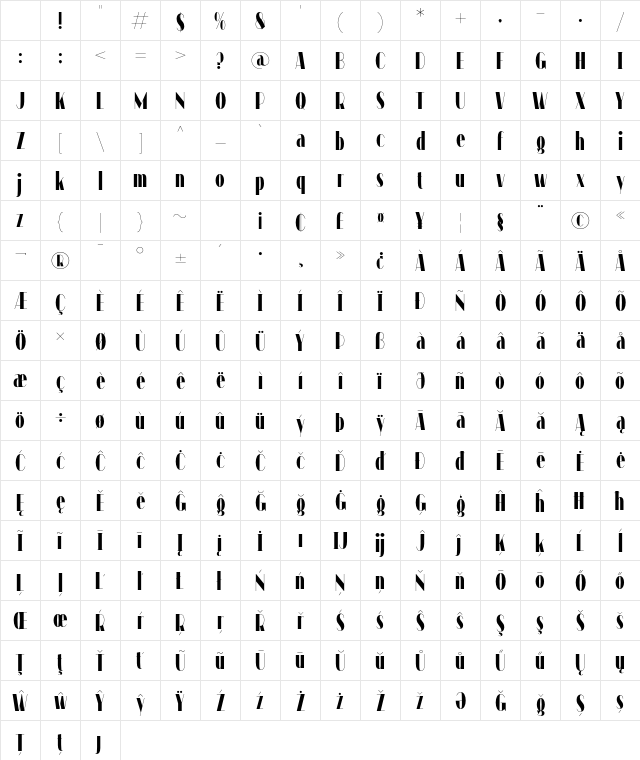
Complete Munges Condensed Regular glyph index. Displaying only characters natively supported by Munges Condensed Regular font.
Munges Condensed is a composed and adaptable typeface that performs quietly and consistently across a wide range of design contexts. Its narrow stance lets it pack a punch even in space-constrained designs.